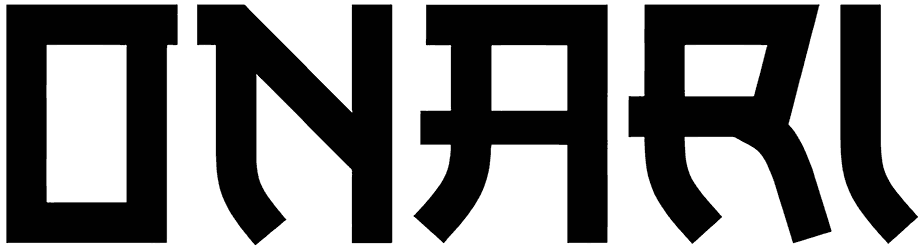
Onari Font
Choosing a unique letterform will add a captivating visual to your creative design, and this Japanese font is a nice choice for related projects. The readable characters make the Onari font an apt item, but it doesn’t support numbers. Test it for a cool design of hoodies or anything else, and amaze your followers.